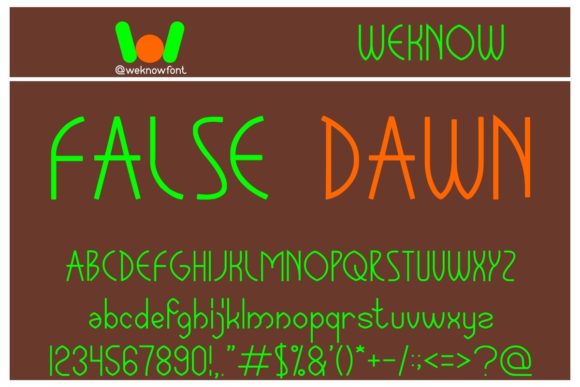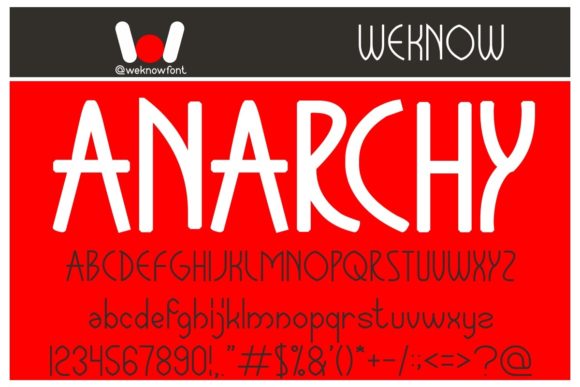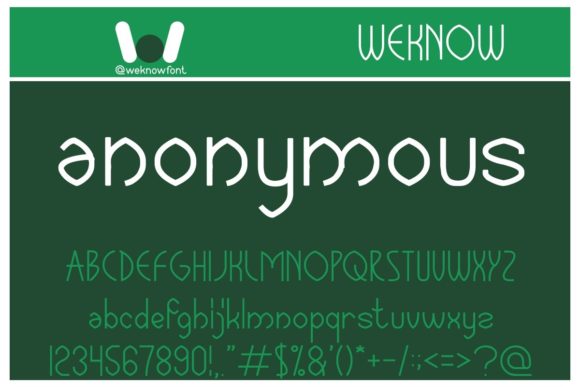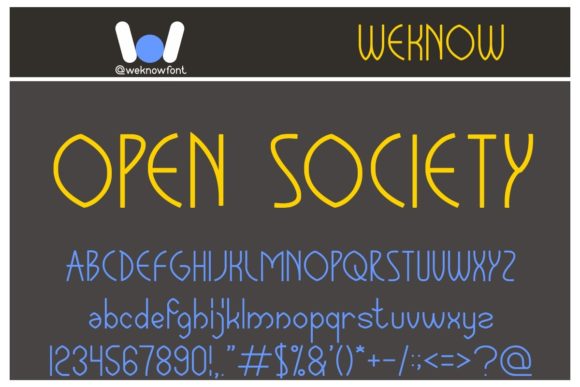
Introduction to Global Capitalism Font
As designers, we’ve all been there – staring at a blank canvas, trying to spark that creative magic. It’s the moment when everything comes together, and our vision takes shape. For many of us, it’s the perfect font that sets the tone for our entire project. And that’s exactly what the Global Capitalism Font does – it adds a unique touch to any design, making it stand out from the crowd.
This high-quality font is a valuable resource for designers, offering a transparent background that allows your design to shine. Whether you’re working on a business card, a web design, or any other creative project, the Global Capitalism Font is an excellent choice. And the best part? It’s available for free download, making it an accessible design resource for designers of all levels.
Key Features of Global Capitalism Font
- High-quality typography with a unique, modern aesthetic
- Transparent background, making it easy to layer over images and designs
- Designed to be a versatile design resource for creative projects, from logos to branding materials
- Includes a range of weights and styles, allowing for precise control over typography
Honest Review: Global Capitalism Font
I recently came across the Global Capitalism Font, and I must say it’s been a game-changer for my design projects. As a designer, I’m always on the lookout for high-quality fonts that can elevate my work. The Global Capitalism Font definitely delivers.
Here are some features that I think work particularly well:
- ✨ Clean and modern design: The font has a sleek, contemporary feel that works well for a wide range of creative projects.
- ✨ Transparent background: This makes it easy to use the font on top of any background image or color without worrying about it getting lost.
- ⚠️ Limited character set: While the font is well-suited for headings and titles, it may not be the best choice for large blocks of text.
- ⚠️ Not ideal for very small sizes: The font may become difficult to read at very small sizes, so be sure to test it out before using it in a design.
Overall, I’m really impressed with the Global Capitalism Font. It’s a valuable addition to any design resource library, and I’ve already used it in several creative projects with great results. I highly recommend giving it a try!
The Global Capitalism Font is a high-quality design resource perfect for creative projects that require a unique and professional touch. With a transparent background and free download option, this font is an ideal choice for designers and non-designers alike.
Tips for Getting the Most Out of Global Capitalism Font
For the best results, use the Global Capitalism Font in conjunction with other design elements to create a visually appealing and cohesive design.
The Global Capitalism Font is ideal for:
- Business presentations and reports
- Marketing materials and brochures
- Graphic design and illustration
Does the Global Capitalism Font have a transparent background?
Yes, the Global Capitalism Font features a transparent background, making it easy to overlay on images or use as a design element in your creative projects. This adds a level of sophistication and visual interest to your designs, while also providing flexibility in terms of layout and composition.